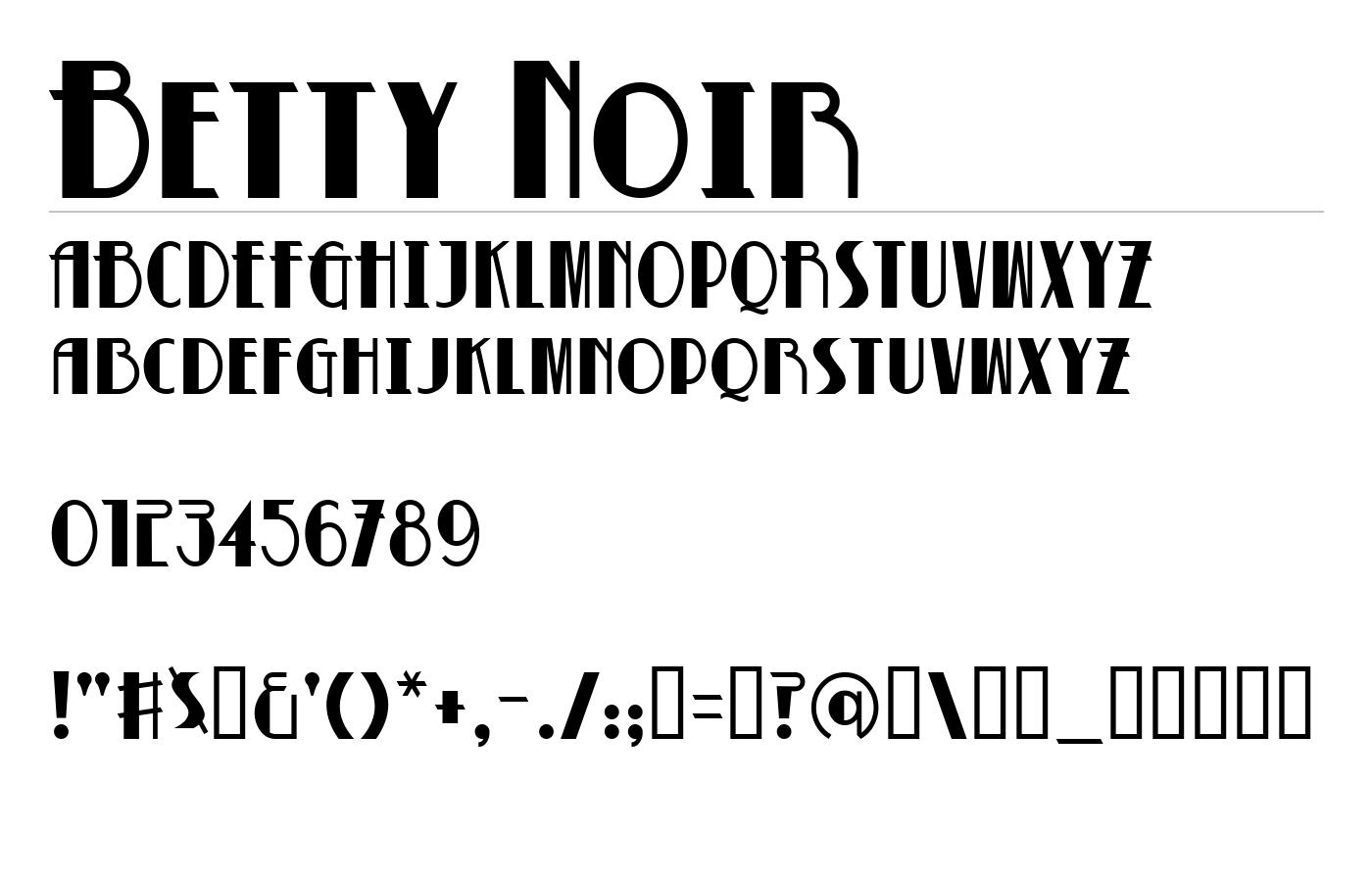
Betty Noir is a bold, condensed sans serif font with a striking Art Deco flair, featuring sharp geometric shapes and unique letterforms like the stylized Q and R. Its high contrast and narrow structure give it a vintage yet modern personality, making it perfect for elegant logos, eye-catching headlines, and luxury branding that seeks a distinctive, retro-inspired look. This font works best where a strong, memorable impact is needed, especially in fashion, editorial, and packaging design.
Betty Noir Font
About Betty Noir Font